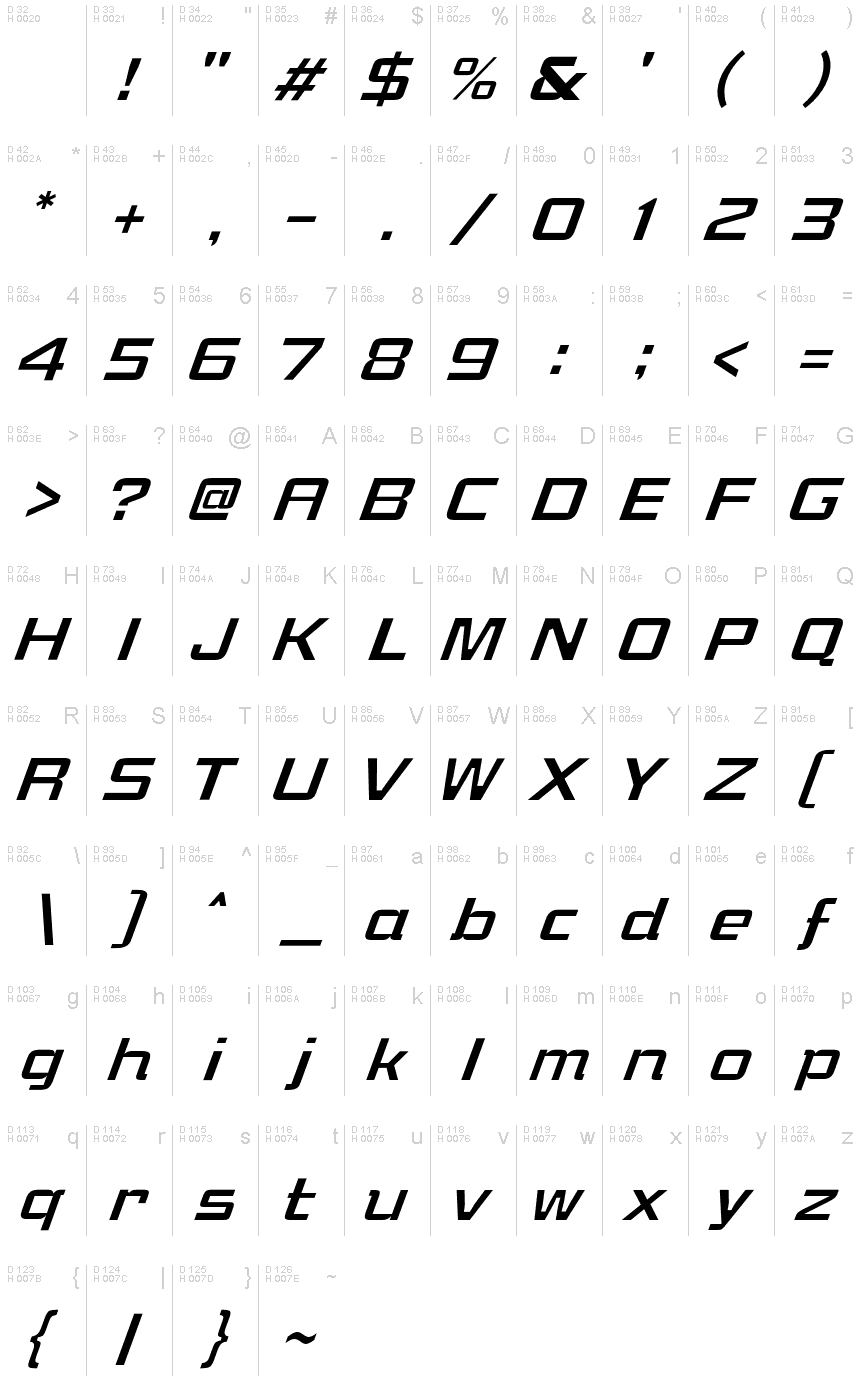
KHMenu Italic
KHMenu Italic font is a techno sans serif font designed by Televo.
In comparison to similar fonts (DFPW5_EUR.ttf, KH_ALL_MENU_I.ttf and Kingdom_Hearts_Font.ttf) the font characters in Re:Collection have all been accurately recreated directly from the games where possible (notably KHTitle and KHScala) and they have vastly improved spacing/kerning (when using metric spacing).
Each font contains all unicode characters of Basic Latin and some characters of Latin-1: ABCDEFGHIJKLMNOPQRSTUVWXYZabcdefghijklmnopqrstuvwxyz0123456789.,:;!?*#/(){}[]-_"'@&|$+-=≠>